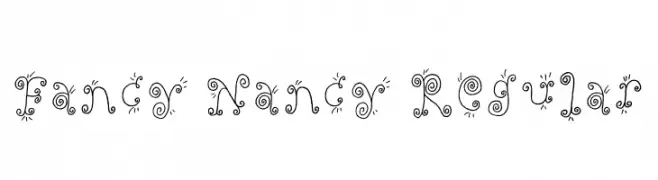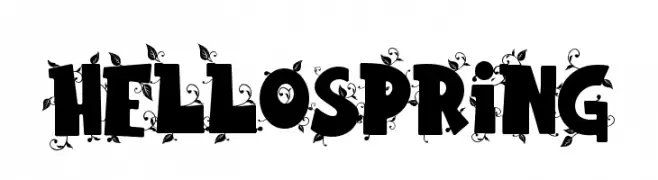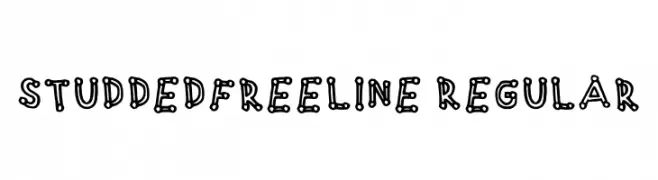
A decorative script font with intricate floral embellishments.
( Fonts by Marcus Melton Design )
A whimsical, decorative font with intricate swirls and playful embellishments.
( Fonts by Subectype )
A whimsical, decorative font with spiral embellishments.
( Fonts by Youssef Habchi )
A playful, decorative font with whimsical embellishments and a hand-drawn feel.
( Fonts by SSI.Scraps )
An ornate and decorative font with intricate swirls and embellishments.
( Fonts by JoGrafik )
A playful, studded font with decorative outlines and circular embellishments.
( Fonts by EyeCone )
A bold, decorative font with star-like embellishments and a futuristic style.
( Fonts by Figuree Studio )
A bold, decorative font with leaf and vine embellishments, perfect for creative projects.